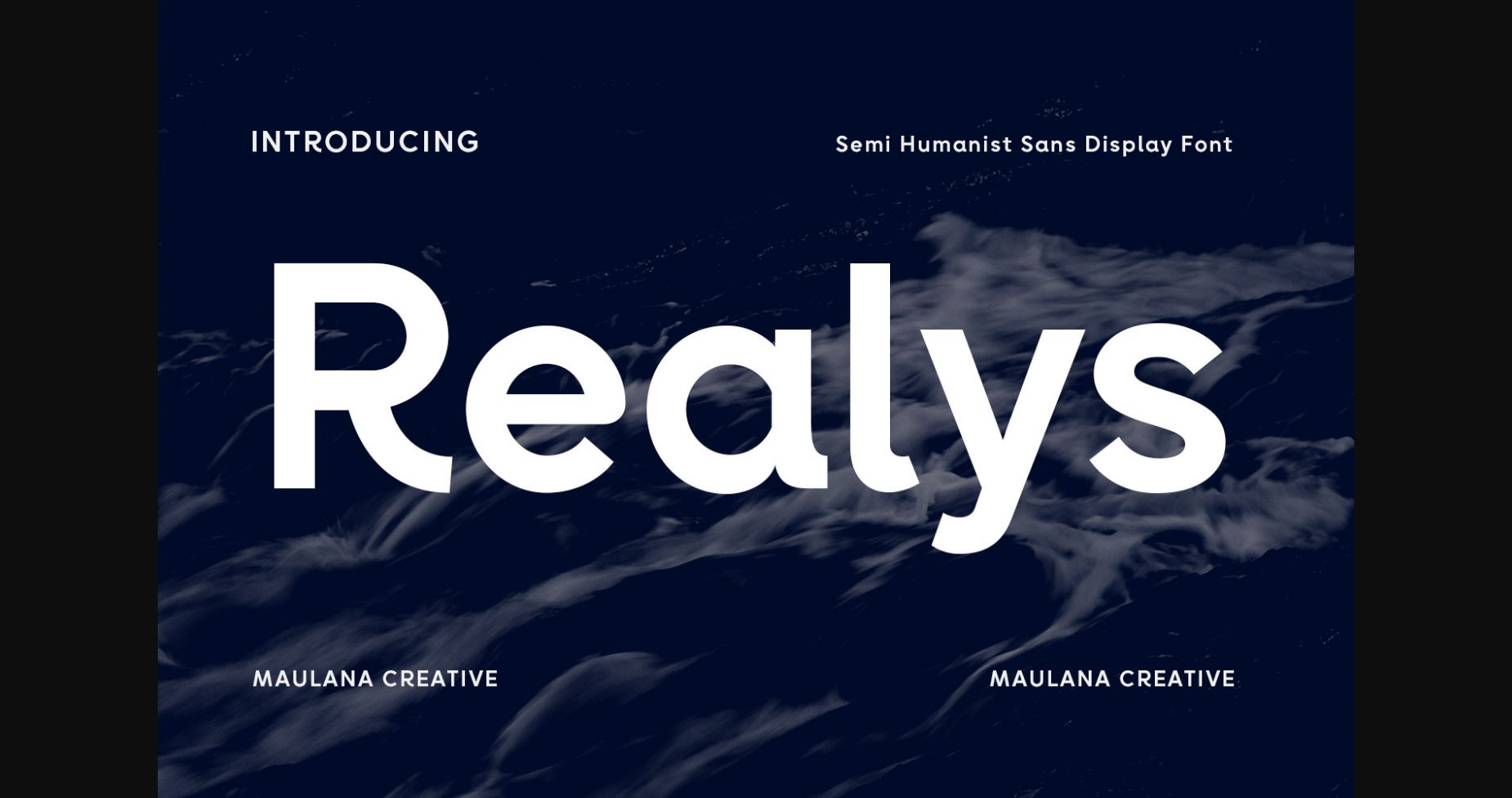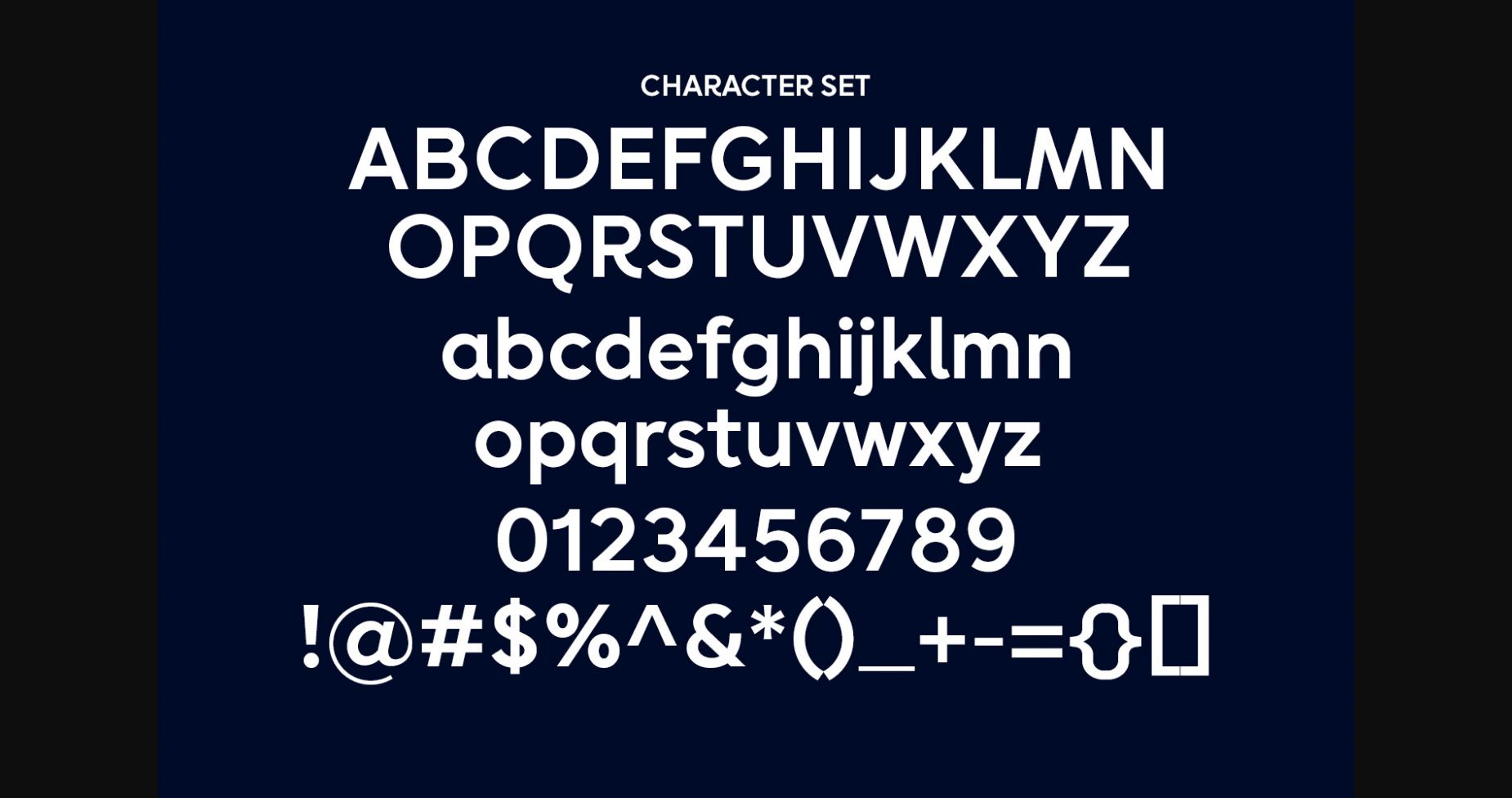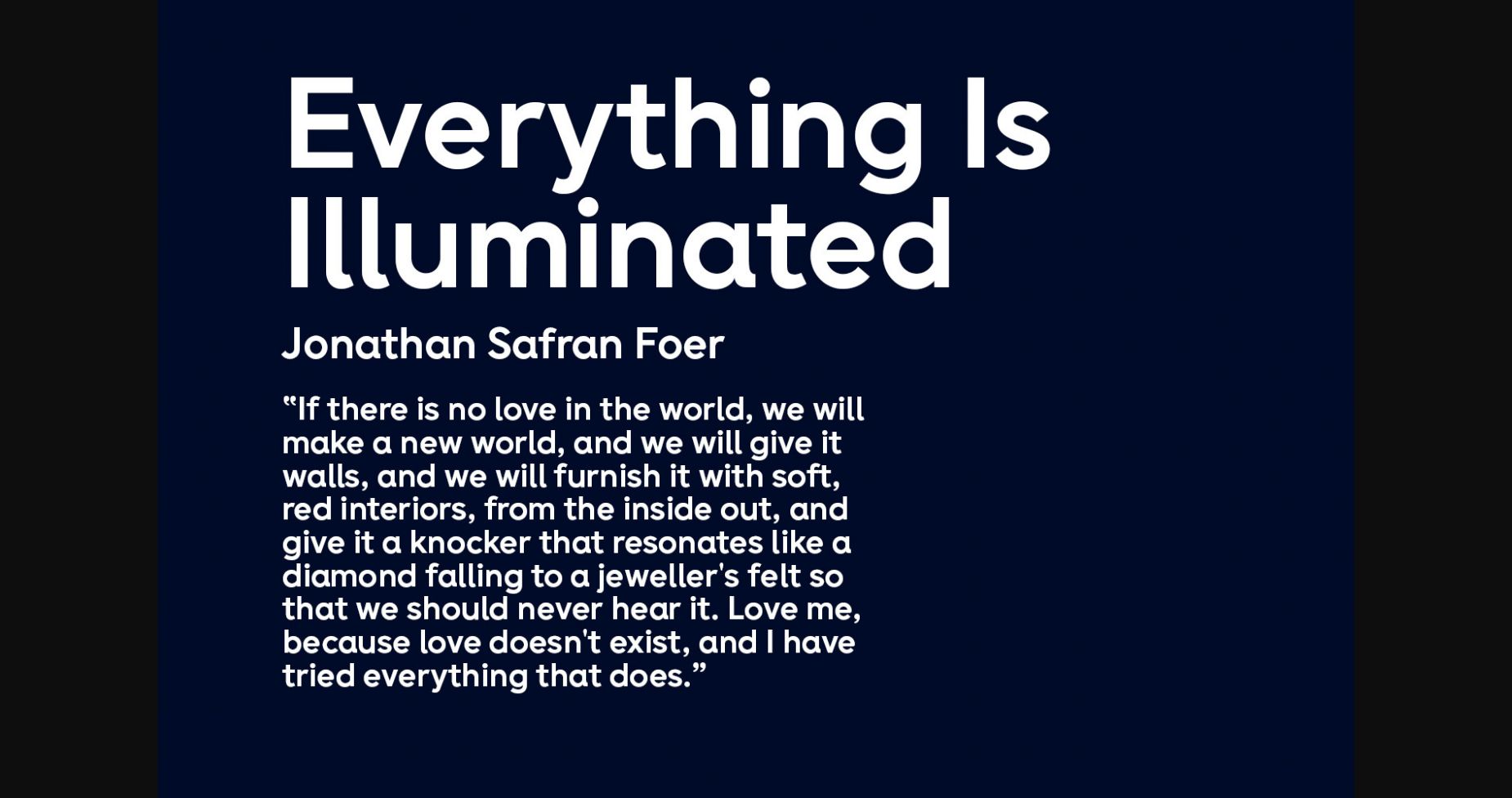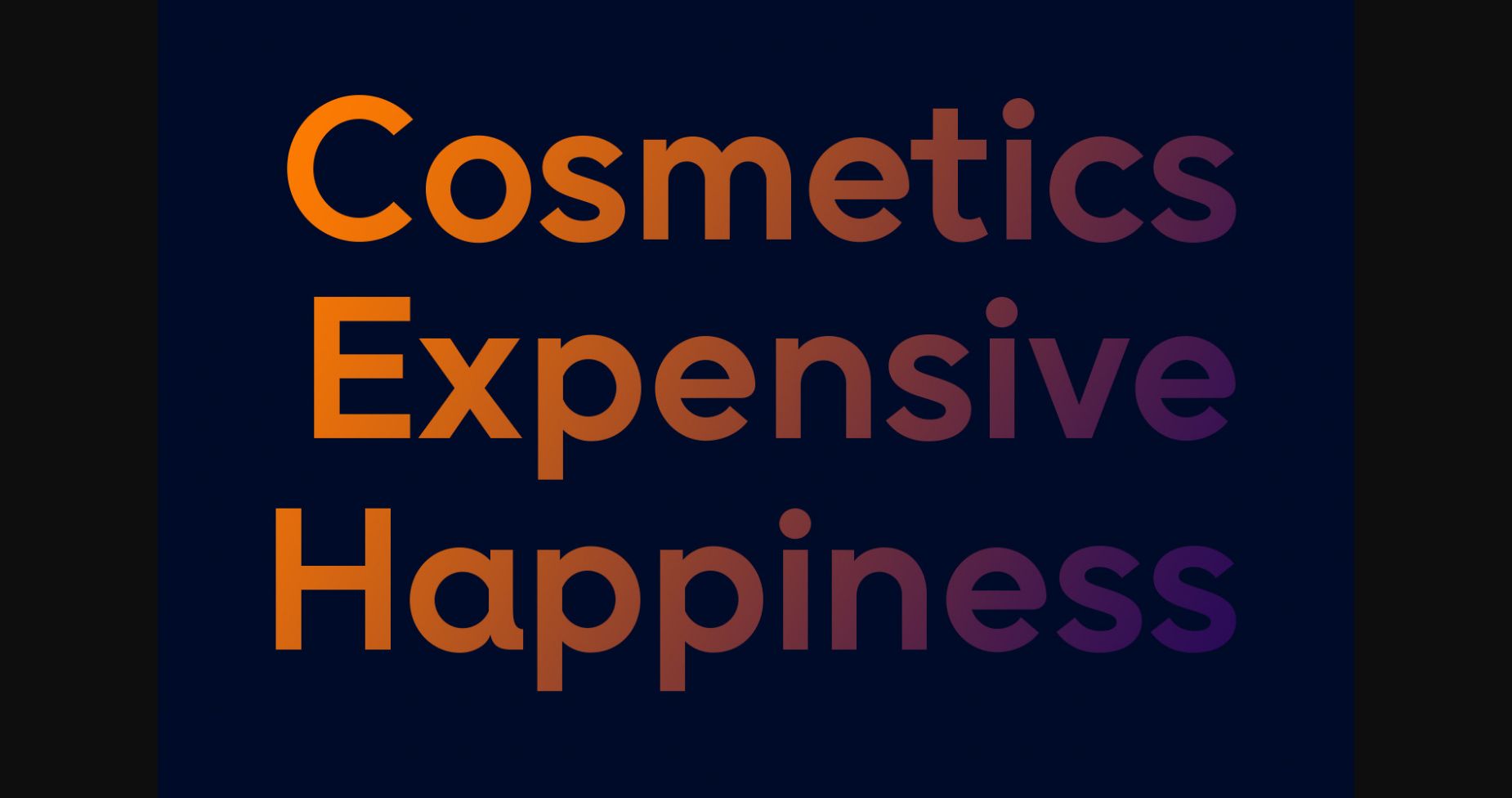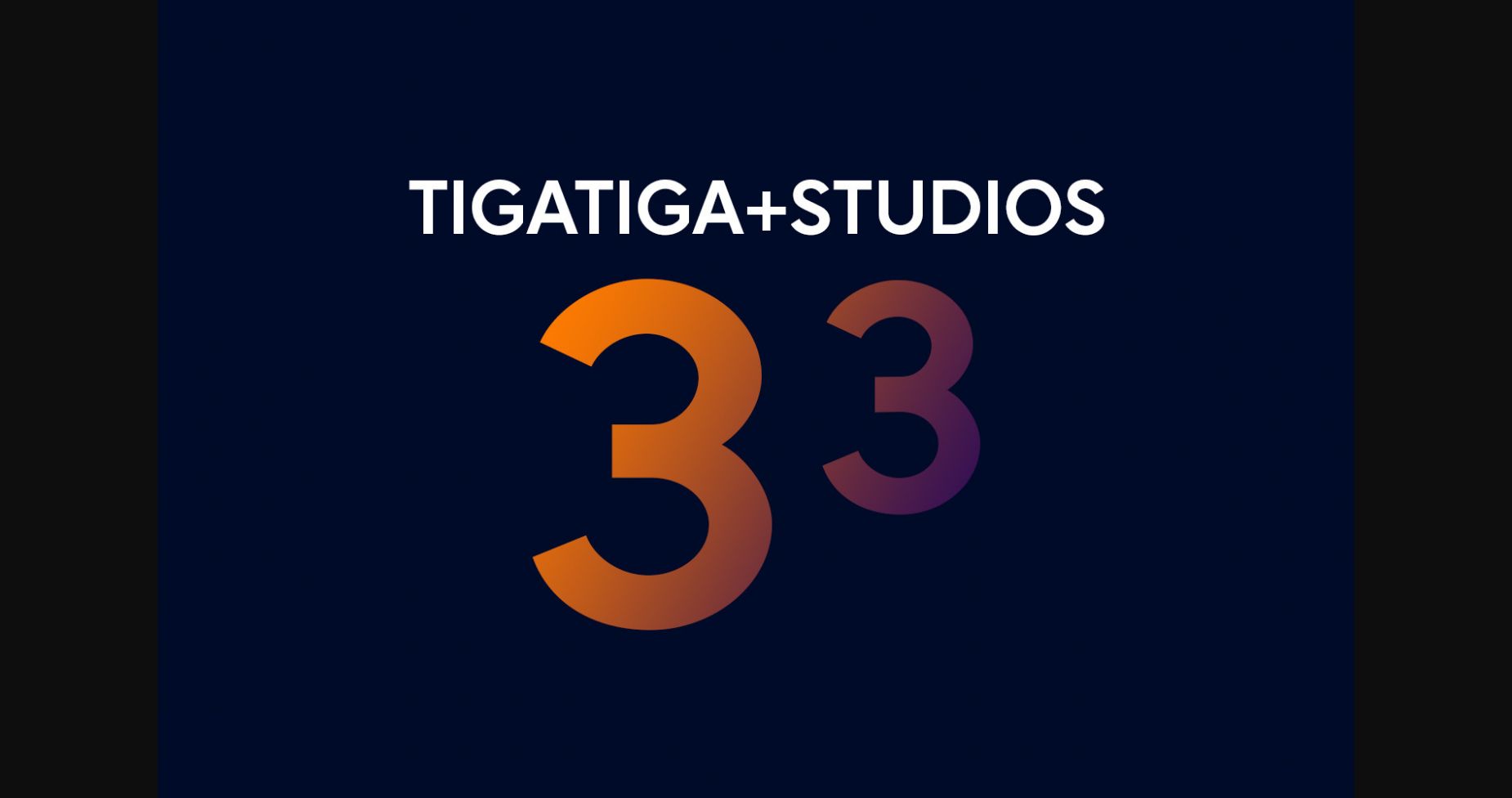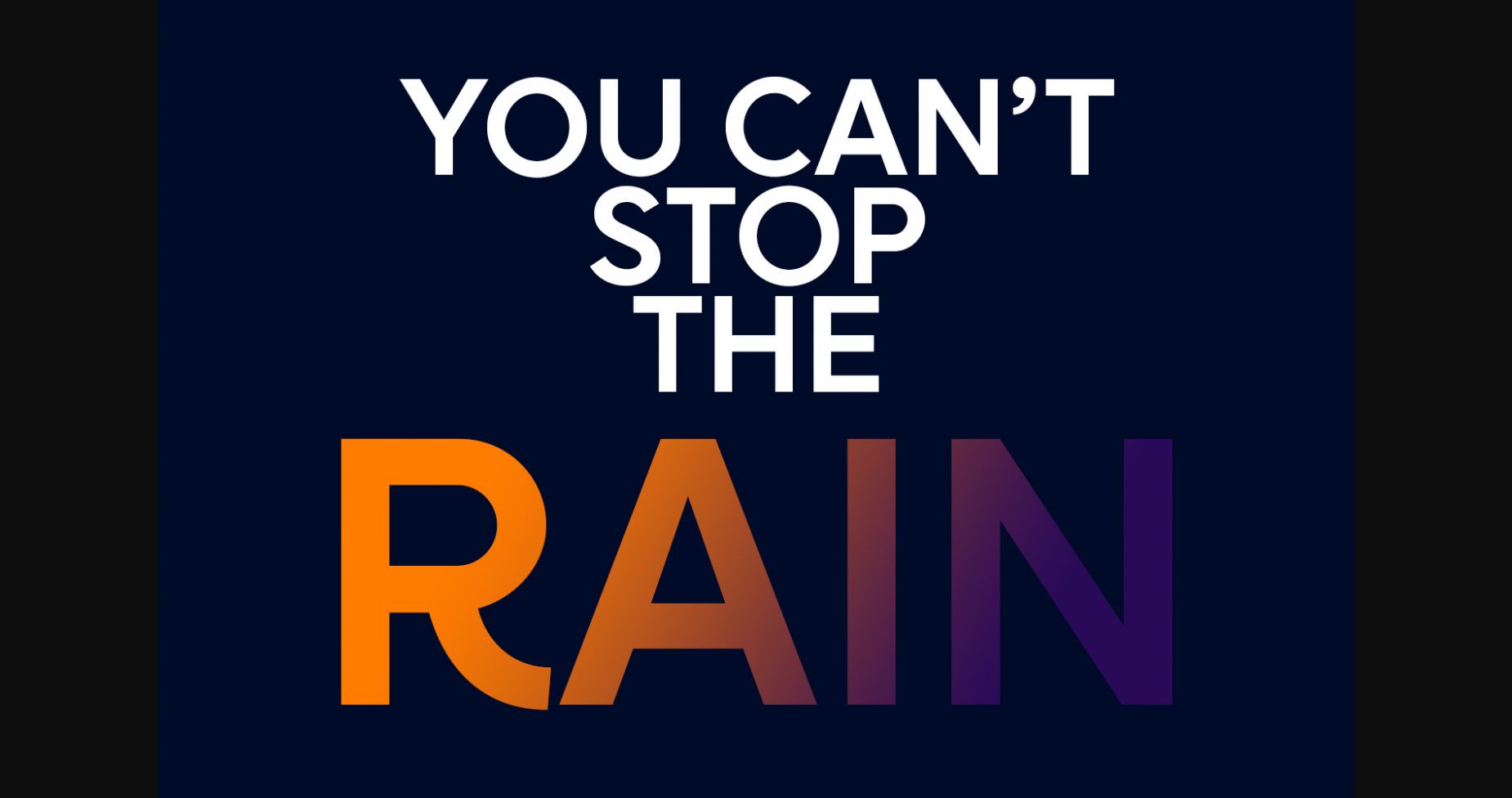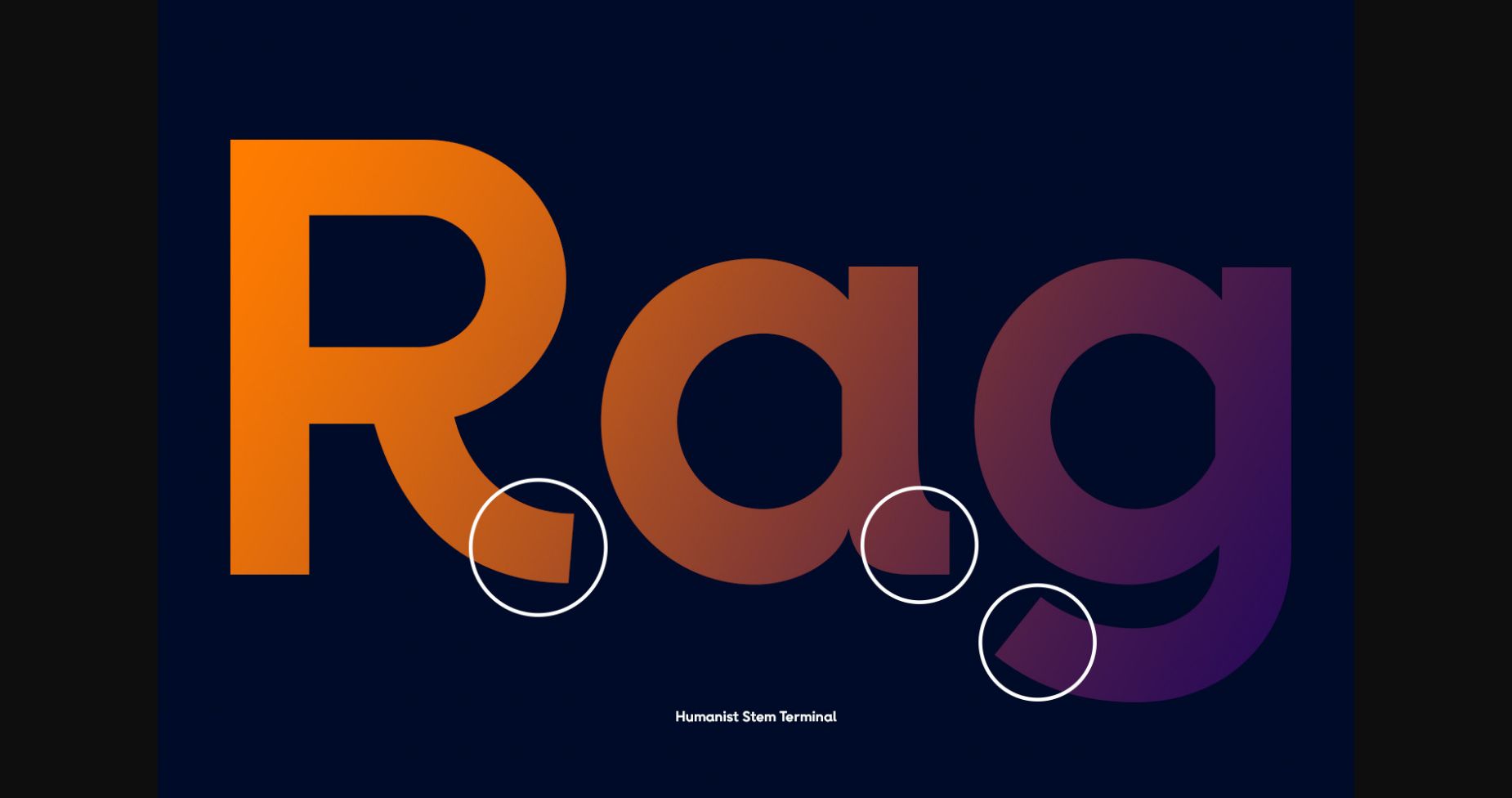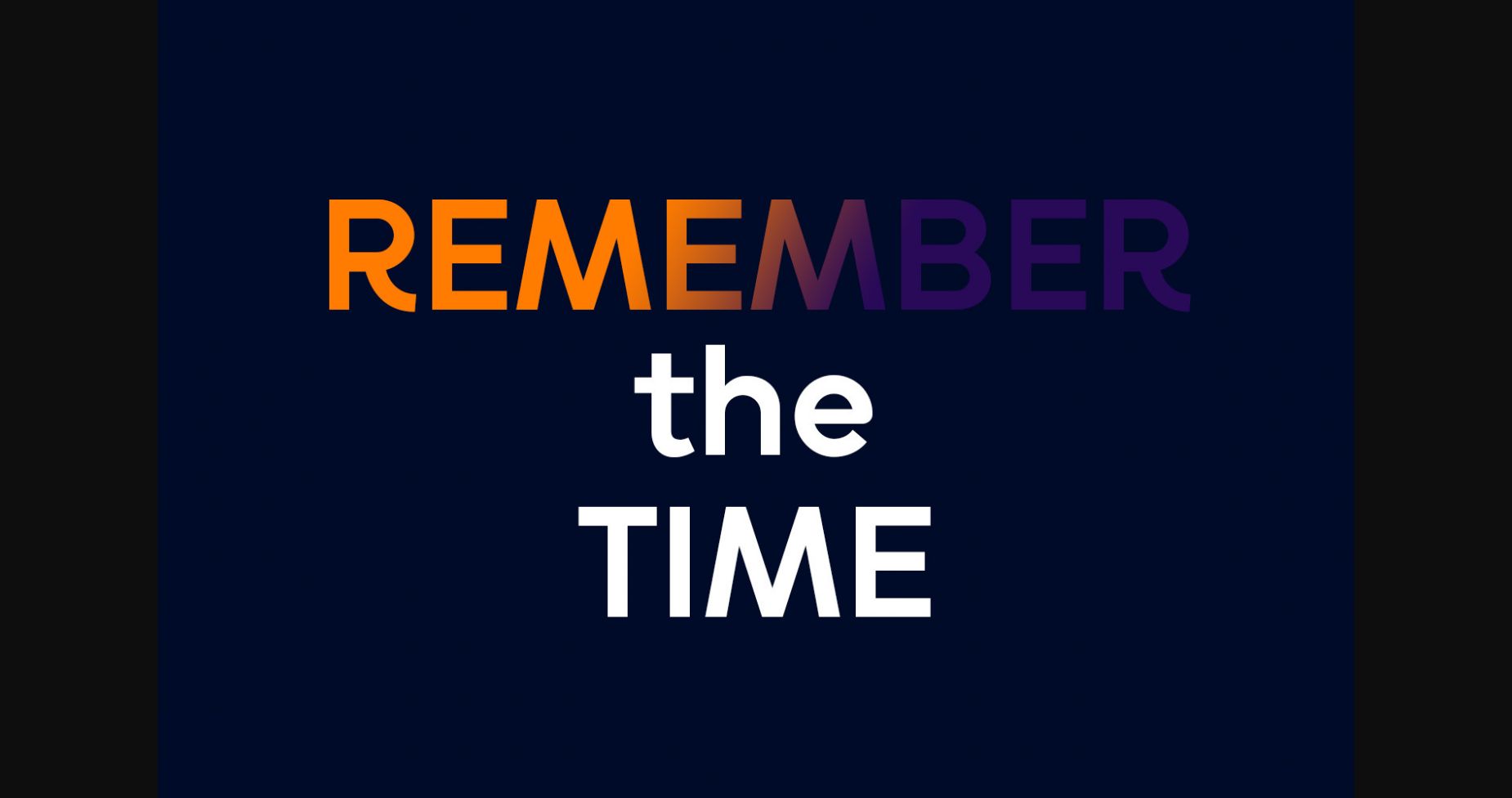
Realys Font
About Realys Font
Realys is a tylish sans serif font that has an attractive design that makes it perfect for modern, contemporary designs. Its smooth curves and clean lines give it a sophisticated feel, and it looks great in both print and digital formats.